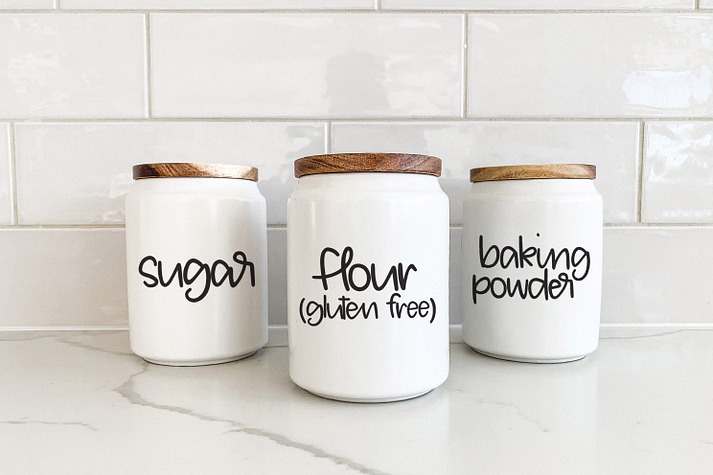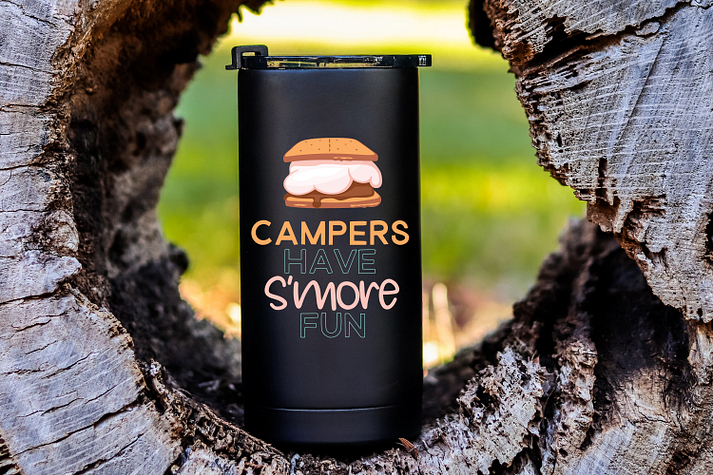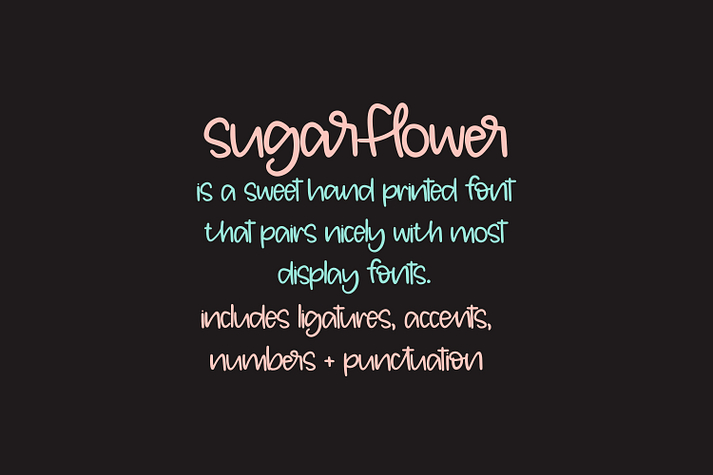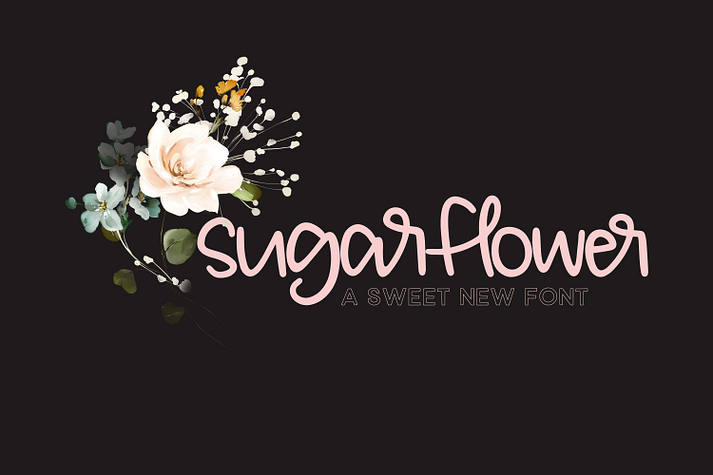
Sugarflower
Sugarflower is a font family published by On The Spot Studio.
meet sugarflower (the outlined block font is MERLOT, another of mine!) super sweet and smooth, perfect for your projects! includes OTF, WOFF and WOFF2
Foundry On The Spot Studio